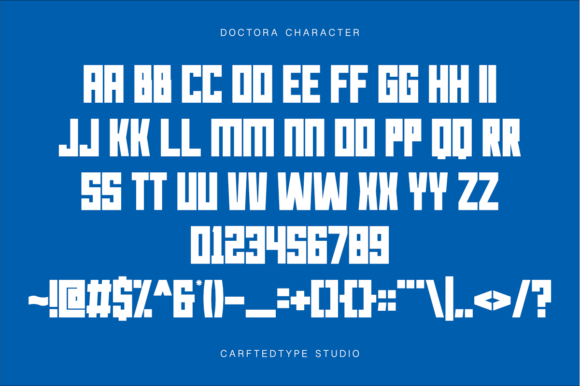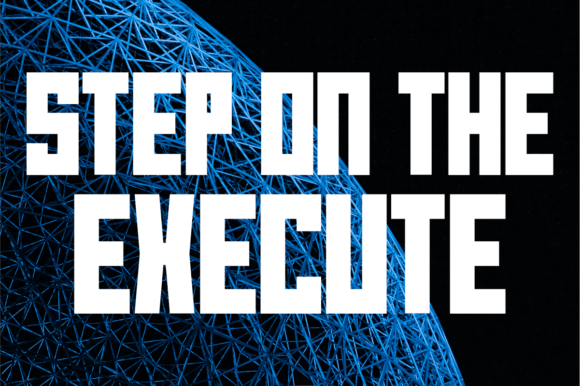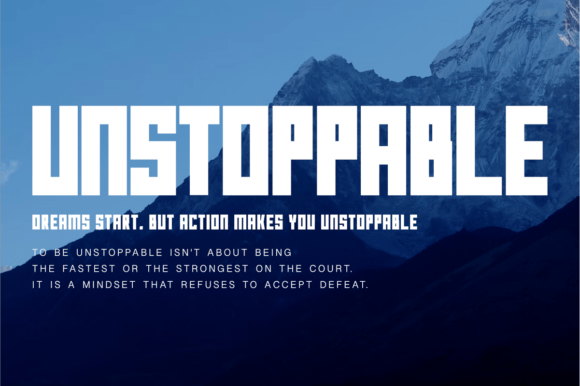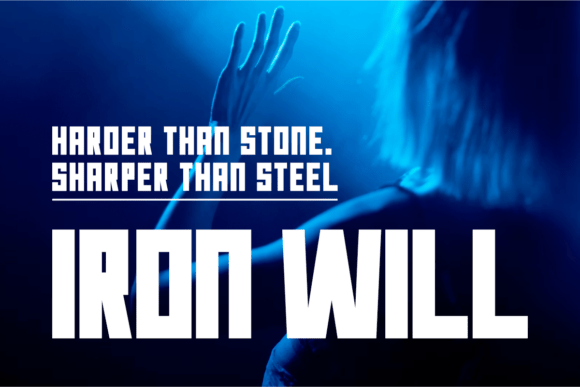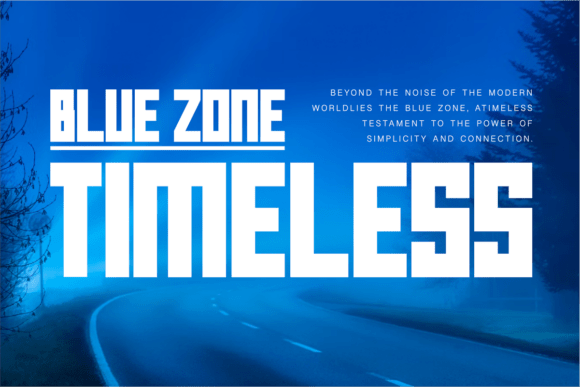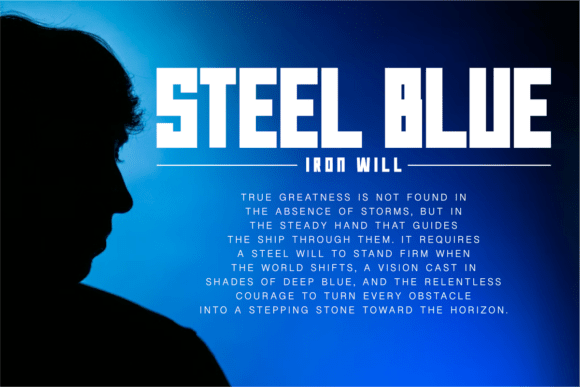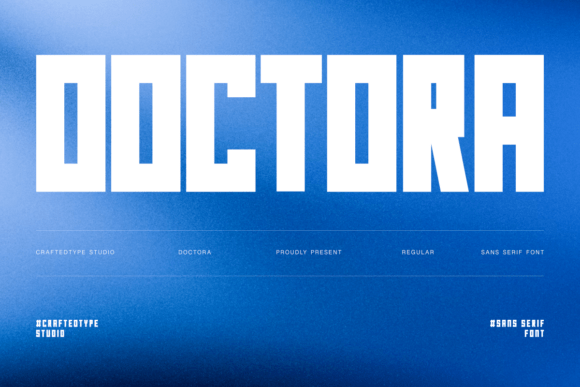
Introducing Doctora Font: The Ultimate Bold Condensed Sans Serif for Creators
In the world of design, having the right font can make all the difference. Whether you’re a seasoned designer or a crafty entrepreneur, finding the perfect typeface to convey your message is crucial. That’s where Doctora Font comes in – a powerful and impactful bold condensed sans serif font designed specifically for creators who need a strong visual presence.
What Makes Doctora Font Stand Out?
Doctora Font boasts a solid blocky structure and clean geometric lines, making it an ideal solution for modern branding, sports logos, and high-energy social media graphics. Its bold and condensed design ensures that your message stands out from the crowd, grabbing the attention of your audience and leaving a lasting impression.
Perfect for Print On Demand Merchandise
Doctora Font is a fantastic choice for Print On Demand merchandise, such as urban streetwear, gym hoodies, and motivational posters. Its readability is essential for these types of applications, where your message needs to be clear and concise. With Doctora Font, you can create stunning designs that resonate with your target audience.
Key Features of Doctora Font
- Bold and Condensed Design: Doctora Font’s bold and condensed design makes it perfect for creating striking headlines and titles that demand attention.
- Clean Geometric Lines: The font’s clean geometric lines ensure that your designs look modern, sleek, and professional.
- Solid Blocky Structure: The solid blocky structure of Doctora Font gives it a sturdy and dependable feel, making it ideal for designs that require a strong visual presence.
- Fully PUA Encoded: Doctora Font is fully PUA encoded, making it easy to use and accessible for designers of all levels.
Why Choose Doctora Font?
There are many fonts available that claim to be versatile and impactful, but Doctora Font truly delivers. Here are just a few reasons why designers and crafters love Doctora Font:
- Versatility: Doctora Font is suitable for a wide range of design applications, from branding and advertising to print on demand merchandise and social media graphics.
- Readability: The font’s bold and clean design ensures that your message is always clear and easy to read, even at small sizes.
- Uniqueness: Doctora Font’s unique blend of bold and condensed design elements sets it apart from other fonts, making it a great choice for designers who want to create something truly original.
How to Use Doctora Font in Your Designs
Using Doctora Font in your designs is easy. Here are a few tips to get you started:
- Pair it with Other Fonts: Doctora Font pairs well with other sans serif fonts, creating a clean and modern look that’s perfect for branding and advertising.
- Experiment with Colors: The bold design of Doctora Font makes it easy to use with a wide range of colors, from bright and bold to muted and pastel.
- Play with Scale: Doctora Font looks great at a variety of sizes, from large headlines to smaller body text.
Doctora Font is a powerful and impactful bold condensed sans serif font that’s perfect for creators who need a strong visual presence. With its solid blocky structure, clean geometric lines, and fully PUA encoded design, this font is ideal for modern branding, sports logos, and high-energy social media graphics. Whether you’re a designer or a crafter, Doctora Font is a fantastic choice for any project that requires a bold and eye-catching typeface.